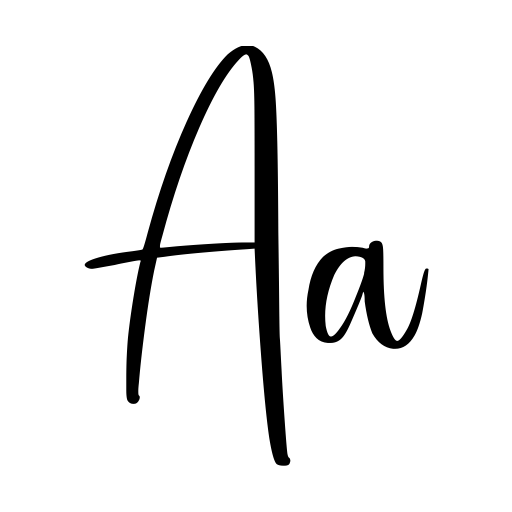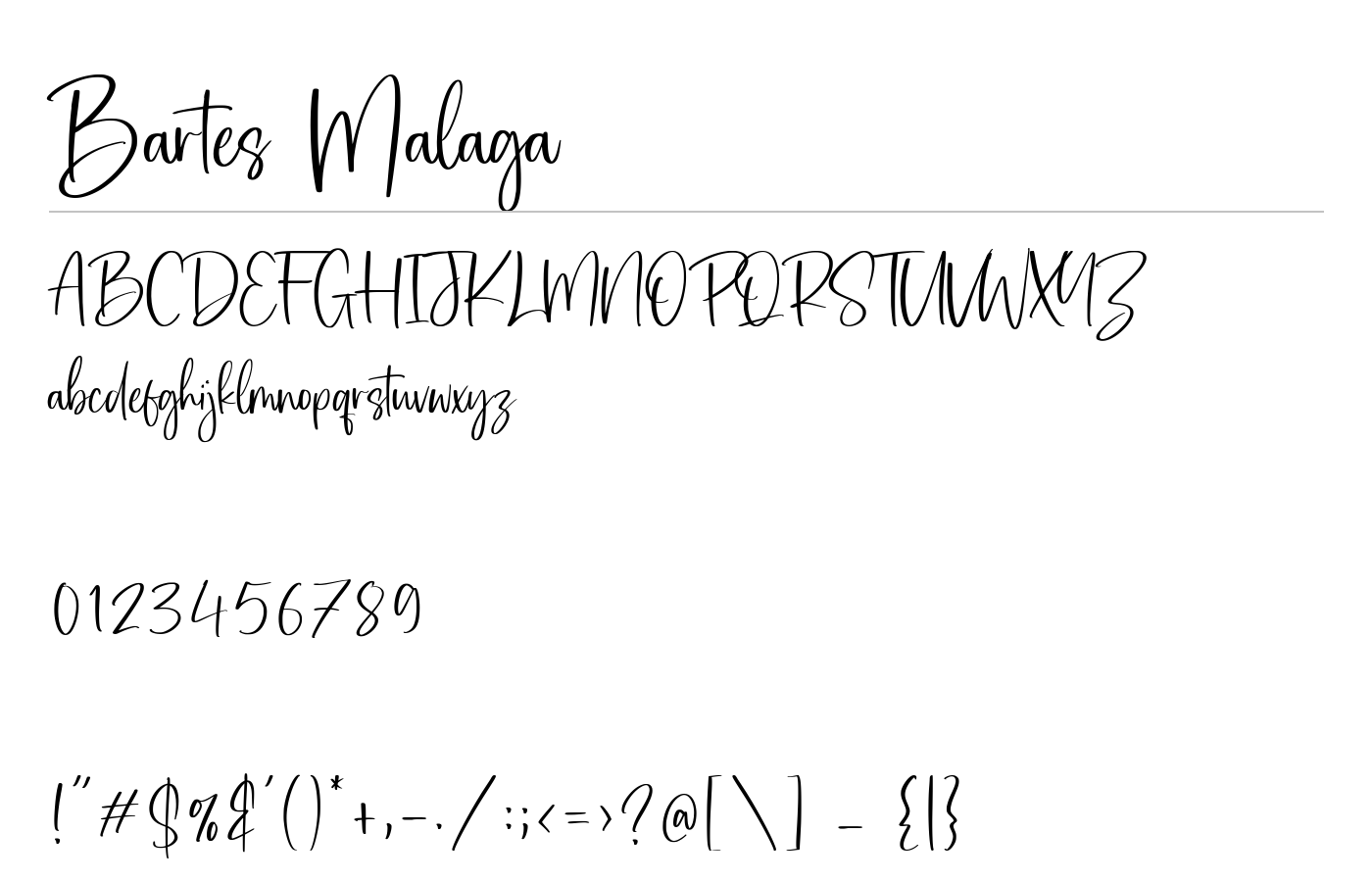
Bartes Malaga is a playful and elegant handwritten script font with a tall, narrow structure and flowing, casual strokes that give it a personal and inviting feel. Its light weight and varied stroke widths create a delicate, organic texture, making it ideal for creative branding, invitations, and lifestyle-related designs that seek a friendly yet stylish touch. This font works beautifully in headlines and decorative text where warmth and personality are desired.
Bartes Malaga Font